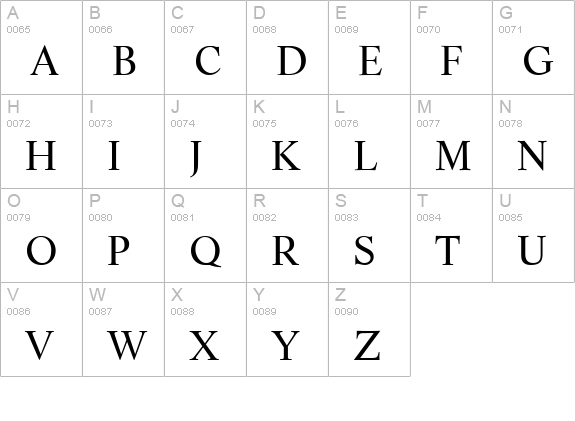
Resource SSi font is a versatile and visually stunning typeface that is sure to captivate any viewer. Its sleek and modern design is perfect for a wide range of projects, from branding and advertising to website design and print materials. With its clean lines and elegant curves, Resource SSi font effortlessly combines both sophistication and simplicity. But what sets this font apart is that it is not only visually appealing, but also freely available to download. That's right, you don't have to break the bank to add this stunning font to your collection. Thanks to FontsMarket.com, you can easily access and download Resource SSi font without any cost. This means that you can incorporate this high-quality typeface into your designs without worrying about any additional expenses. Whether you are a professional designer or a novice enthusiast, Resource SSi font offers endless possibilities for your creative projects. Its wide range of weights and styles gives you the flexibility to experiment and find the perfect look for your design. From bold and eye-catching headlines to subtle and elegant body text, this font has it all. With Resource SSi font, you can elevate your designs to a whole new level. Its timeless appeal and modern aesthetics make it a go-to choice for designers looking to make a lasting impression. So why wait? Head over to FontsMarket.com and download Resource SSi font for free today. Take your designs to the next level with this stunning and versatile typeface.